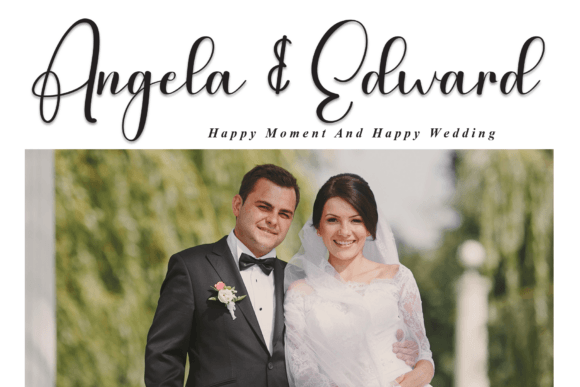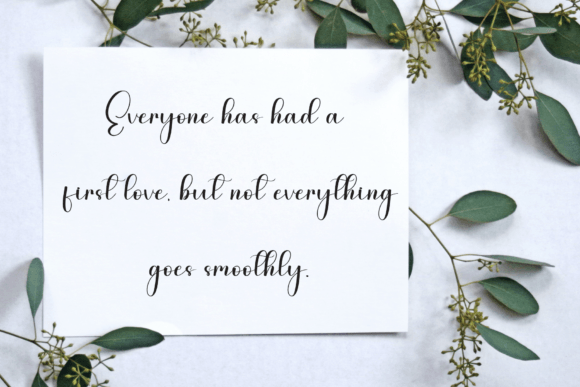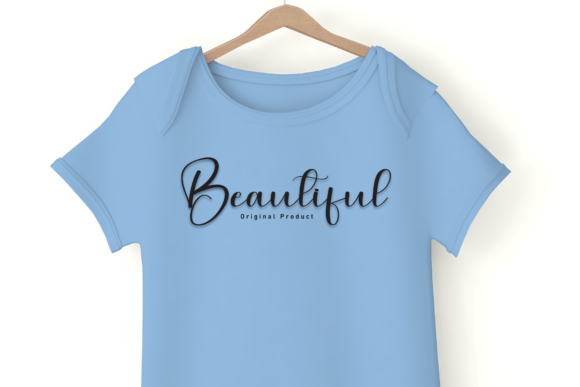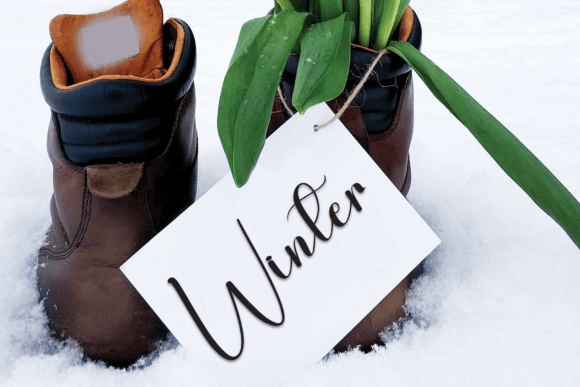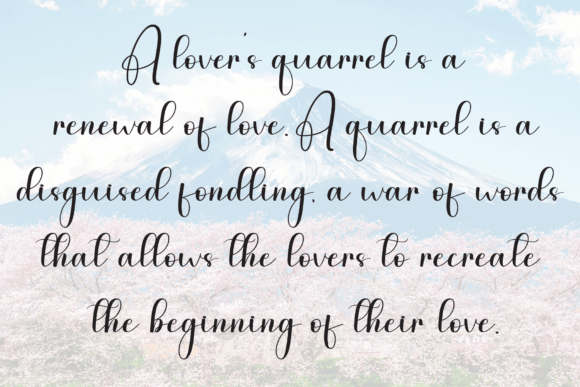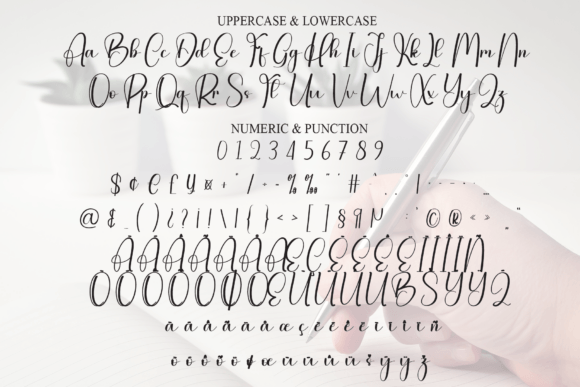
The Perfect Blend of Fun and Charm: Introducing Bestie Signature Font
We’ve all been there – staring blankly at a blank sheet of paper, trying to come up with the perfect phrase to express our heartfelt feelings. It’s moments like these that spark creativity and inspire us to create something truly special. For wedding invitations, greeting cards, or any design that needs a dash of playfulness, I’ve found the perfect solution – a delightful handcrafted display font that embodies the essence of friendship and warmth.
Meet the Bestie Signature Font, a charming typeface designed to add a sprinkle of joy to your designs. This heartwarming font is not just a pretty face; it’s a valuable tool for designers looking to add a personal touch to their work. Whether you’re a seasoned pro or a beginner, the Bestie Signature Font is sure to bring a smile to your face and inspire your creativity.
Bestie Signature Font Key Features
- Font Style: A modern, cursive script font designed for signatures and handwritten text, ideal for adding a personal touch to documents and digital signatures.
- Unique Characteristics: Features a dynamic, flowing design that mimics handwritten signatures, with subtle variations in letterforms and strokes to create a unique, authentic look.
Designer Review: Bestie Signature Font
Overall, I think the Bestie Signature Font has some great qualities that make it a solid choice for designers looking for a fun and playful font. ✨ The font’s friendly and approachable feel makes it perfect for social media graphics, invitations, and other creative projects.
- Unique and quirky design that’s sure to stand out ✨
- Easily readable, even at smaller font sizes
- Comes with a range of styles and variations, including bold and italic options
However, there are some limitations to consider: ⚠️ The font’s design can be a bit too busy for some projects, and the letter spacing can be inconsistent at times. Additionally, the font may not be suitable for formal or professional projects, as it may come across as too casual.
While the Bestie Signature Font may not be the best choice for every project, it’s a great option for designers looking for a fun and playful font. With some careful consideration and planning, it can be a great addition to your design toolkit. Just be mindful of its limitations and use it accordingly.
Tips for Getting the Most Out of Bestie Signature Font
Here are some tips to help you get the most out of Bestie Signature Font:
- Combine Bestie Signature Font with other fonts for a visually appealing design.
- Use Bestie Signature Font for personal and business branding.
Bestie Signature Font is perfect for:
- Personal branding and signature designs.
- Business logos and letterheads.